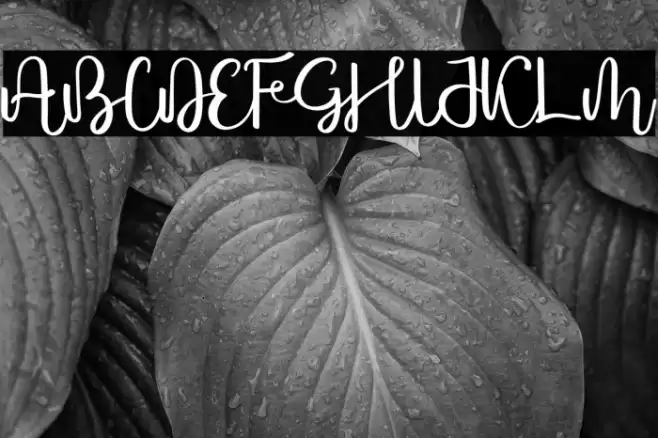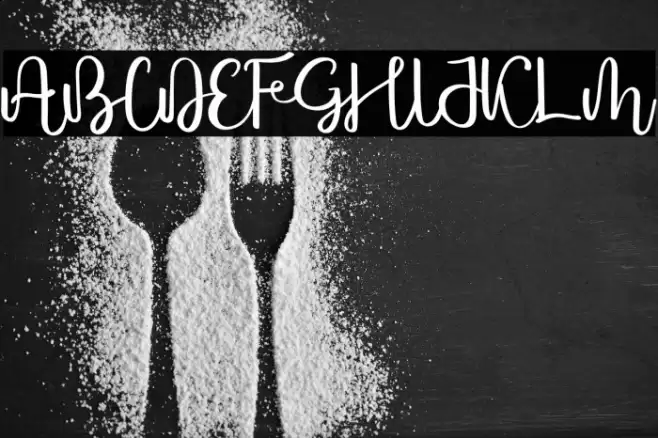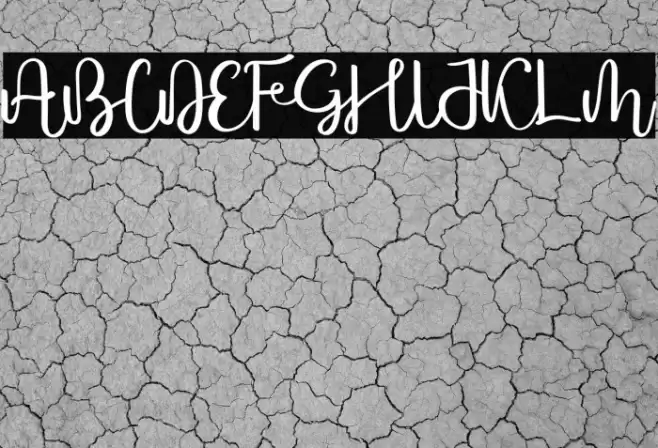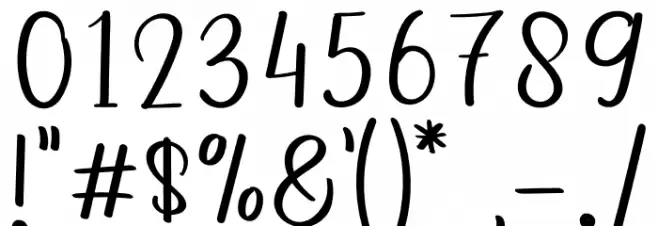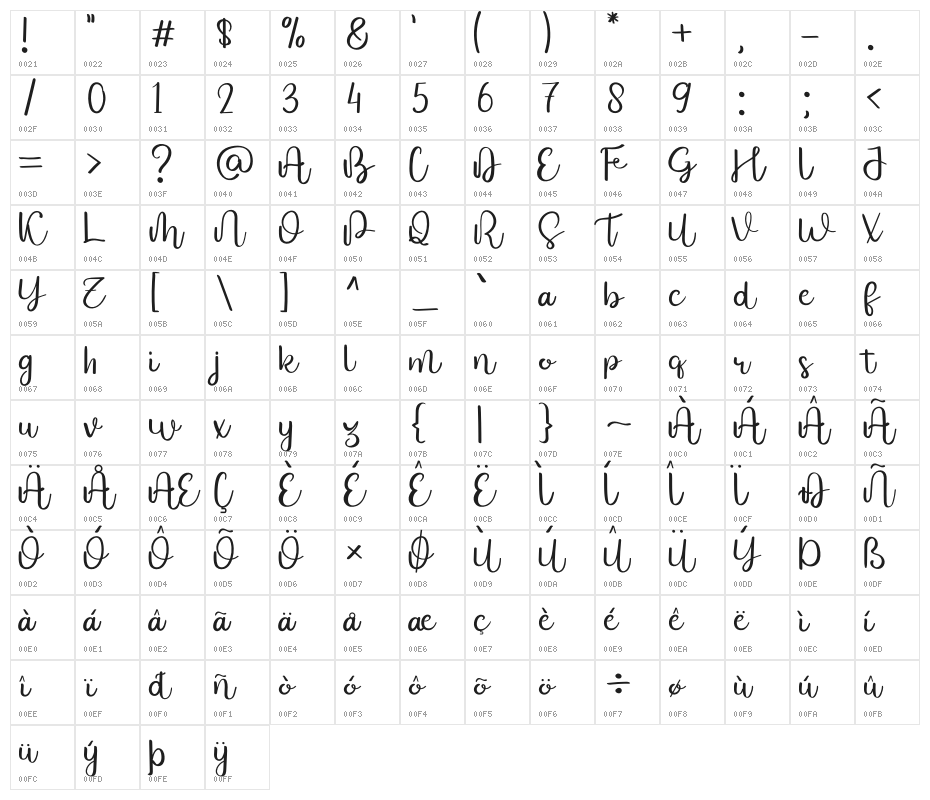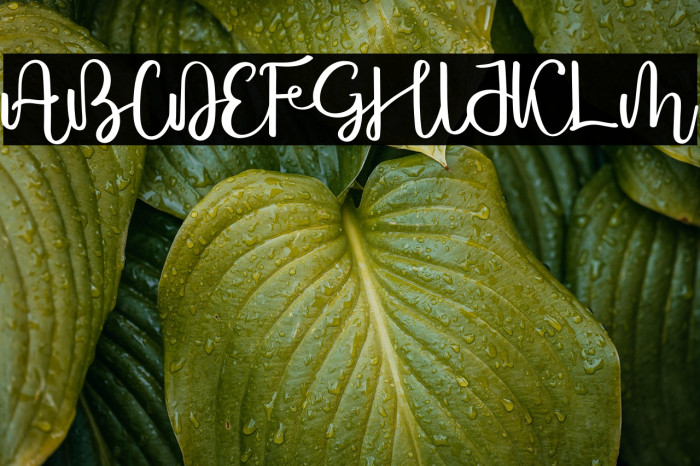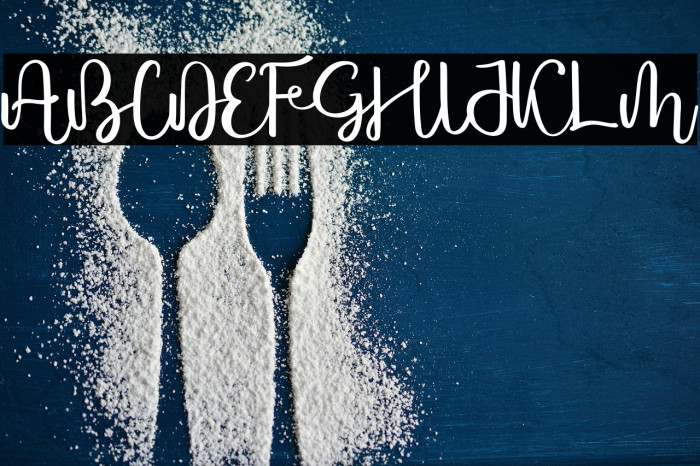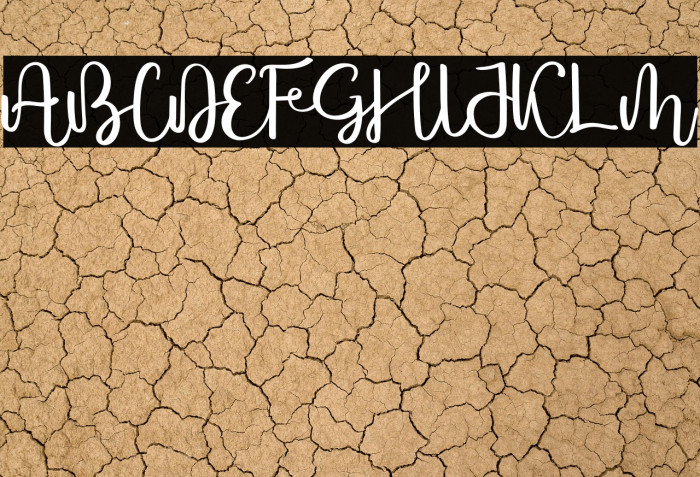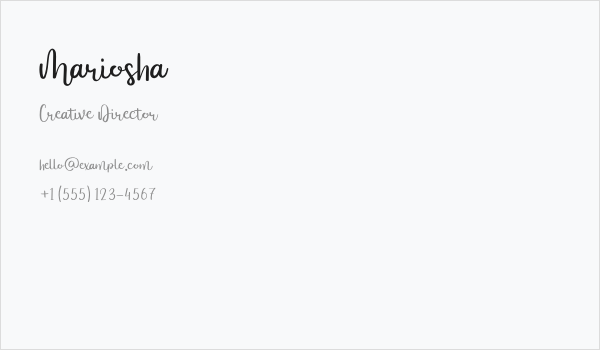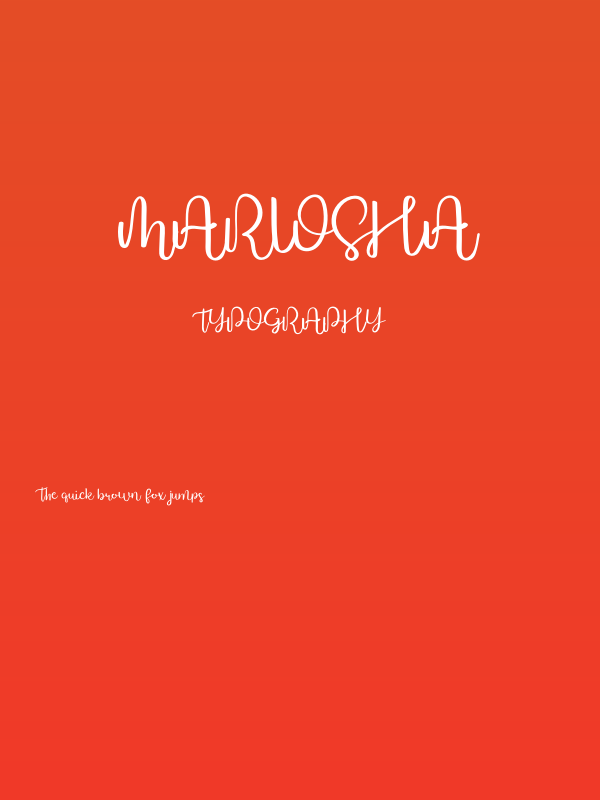
Mariosha Font
Mariosha Description
This font features a playful and flowing script style, characterized by its smooth, rounded curves and connected letterforms. The uppercase letters are bold and prominent, with a whimsical flair that adds a touch of elegance. The lowercase letters maintain a consistent flow, enhancing readability while retaining a casual, handwritten feel. Numbers are clear and distinct, matching the overall style with their rounded edges. Special characters are creatively integrated, maintaining the font's cohesive look. This font exudes a friendly and approachable vibe, making it suitable for a variety of creative projects.
A playful, flowing script font with smooth, rounded curves and connected letterforms from Uncategorized fonts.
- Font: Mariosha